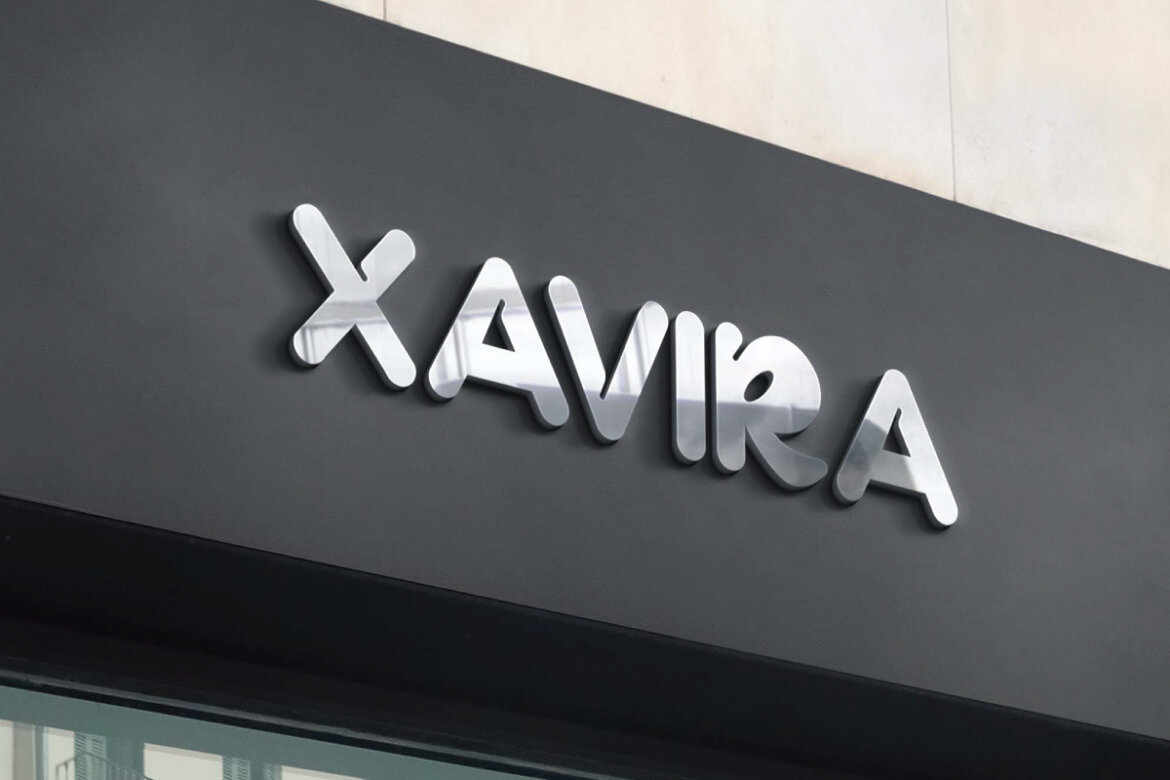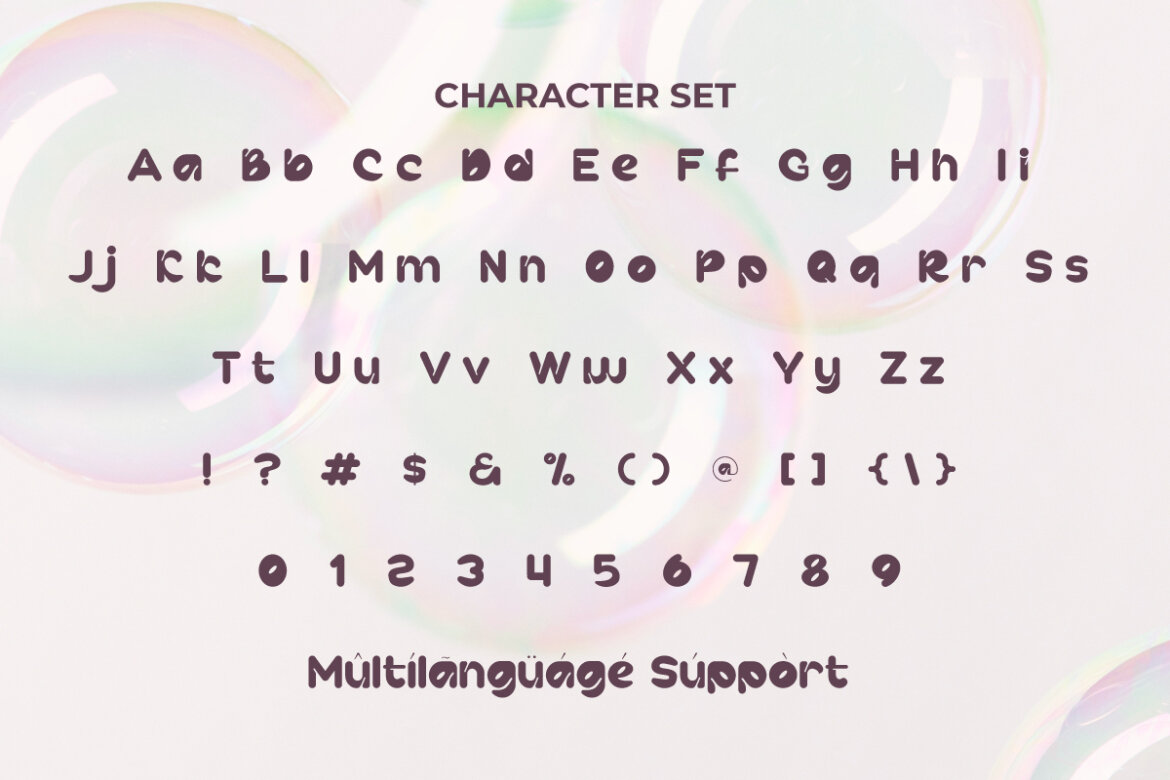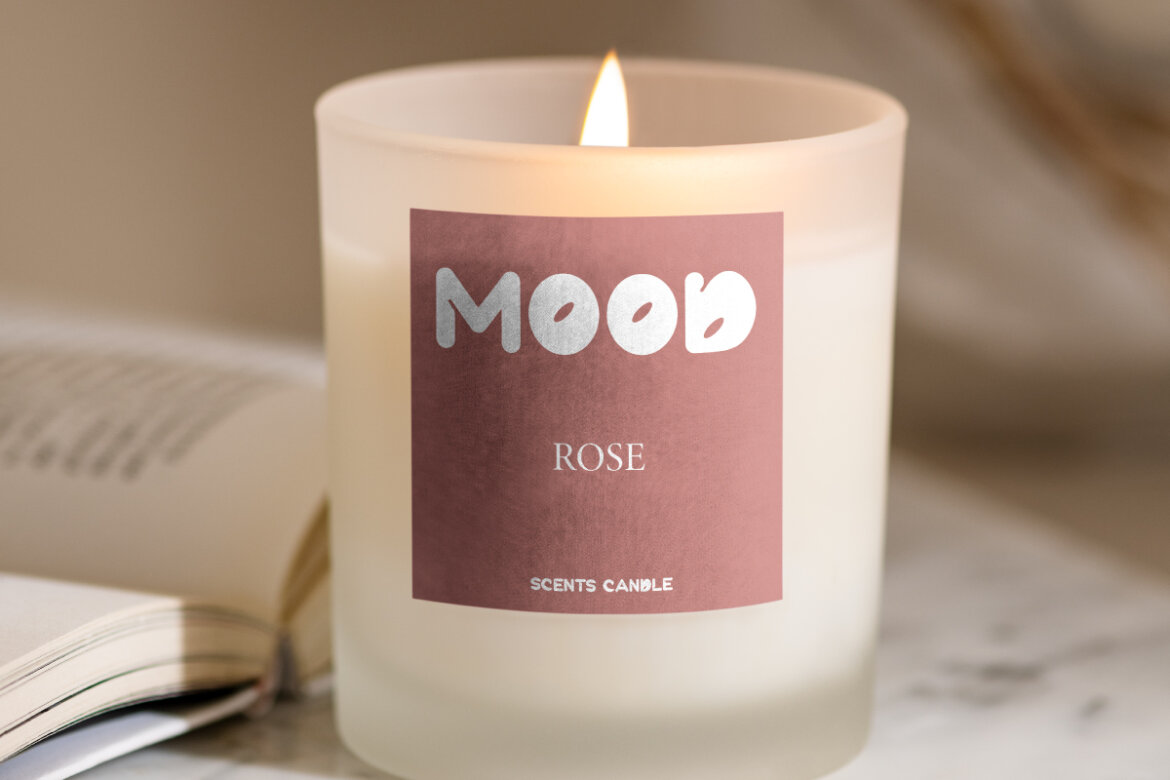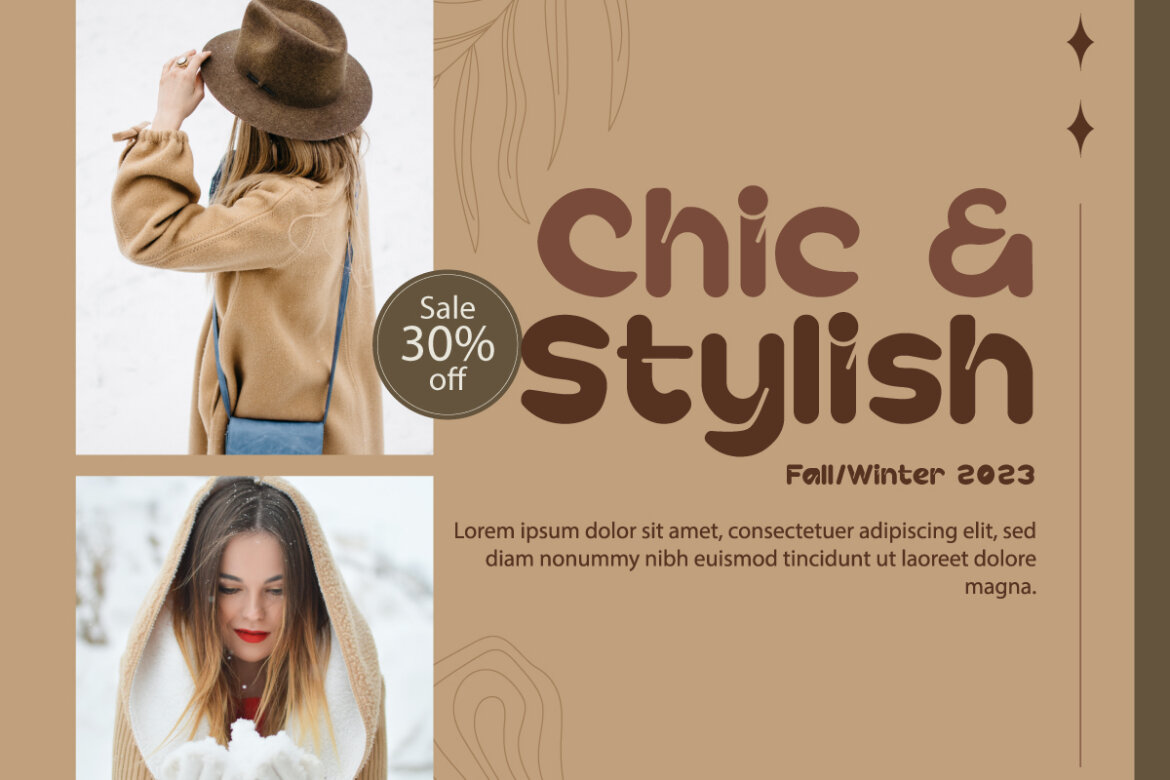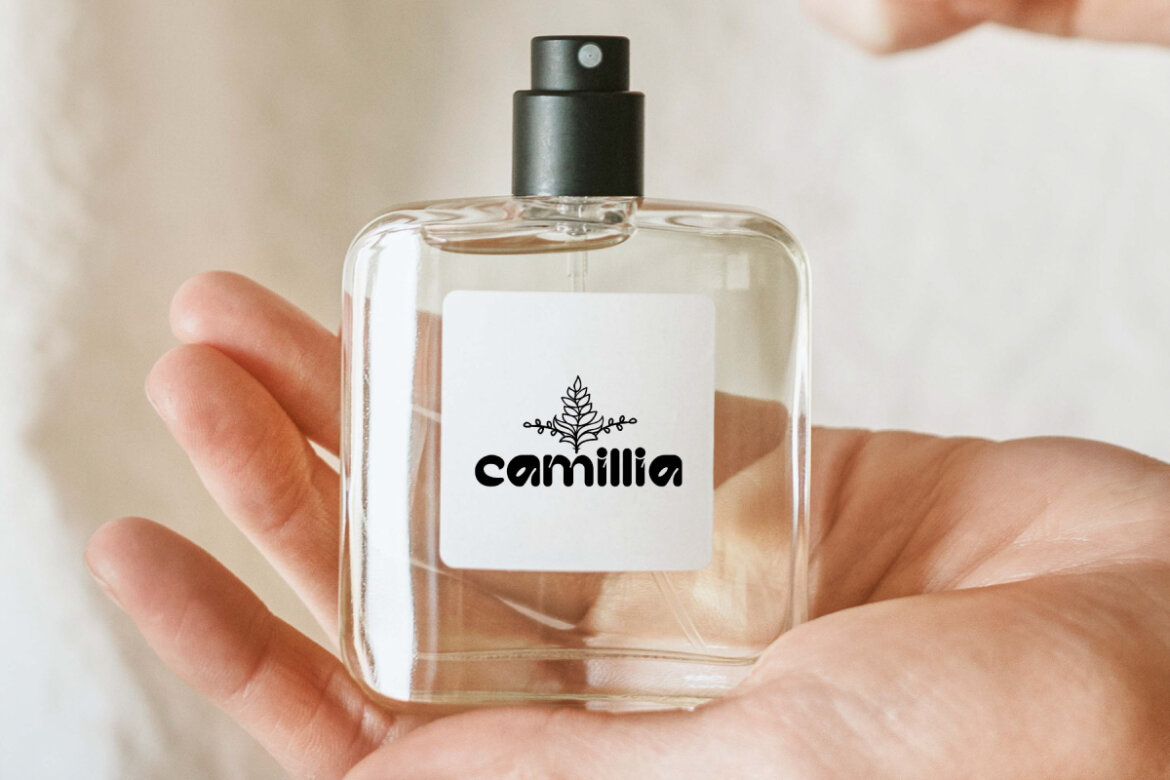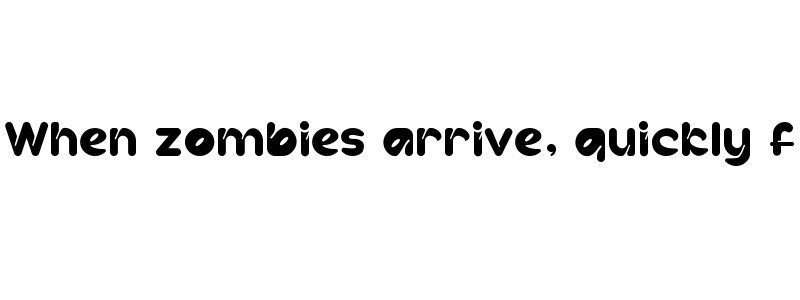
Bubble Games
Bubble Games Font is a cheerful display font with fun dynamic bubbles in an attractive modern style. It’s a great choice for adding a touch of cute typography style to your apps, blogs, brand signs, brochure, business card, cover, flyer, greeting card, header, labels, logos, poster, product packaging, quotes, screen print, sticker, title, watermarks, website header, and anything that needs a fresh and vibrant look.
Bubble Games Font brings a unique style to each letter. The creative bubble shape with strokes in every corner makes it not boring. The letters are equipped with a complete set of Uppercase and Lowercase Letters, Numbers, Punctuation and Symbols. It can add a lively and personal touch to your ideas by radiating bright energy in the aromatherapy supplies, clothing brand, content creator, cosmetic industry, fashion, fragrance brand, game app, handicraft, school education, spa, trinkets, and more of course.